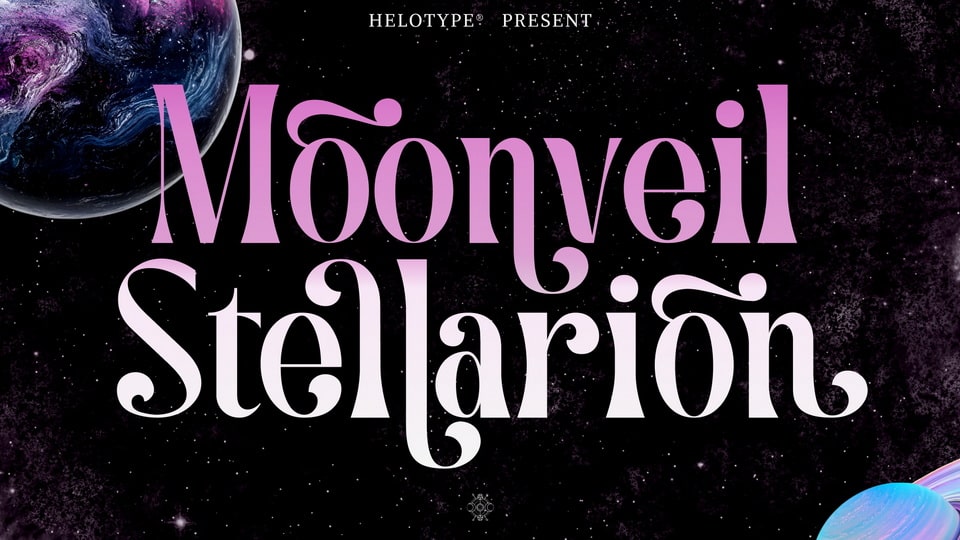
Download Moonveil Stellarion font, a magical typeface inspired by the mysteries of the universe. Perfect for any project that calls for a touch of elegance and cosmic allure.